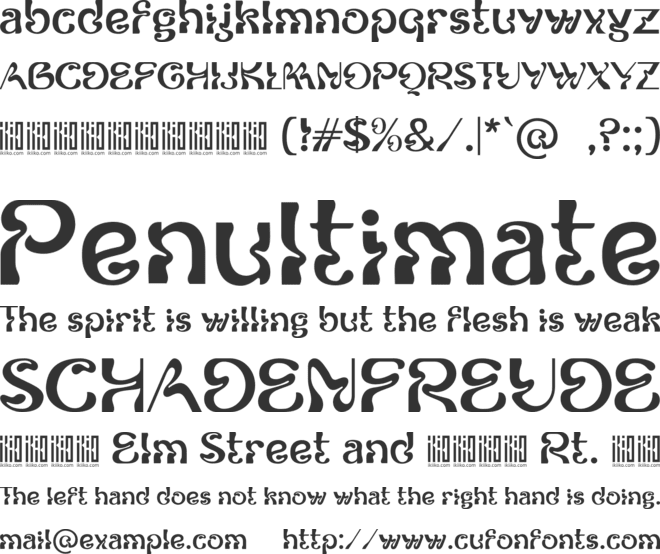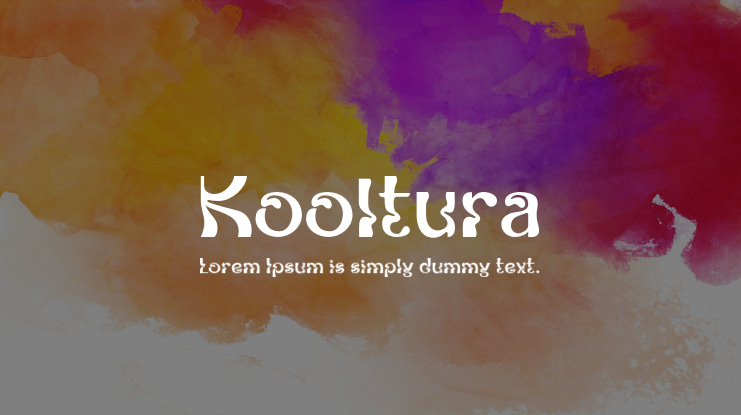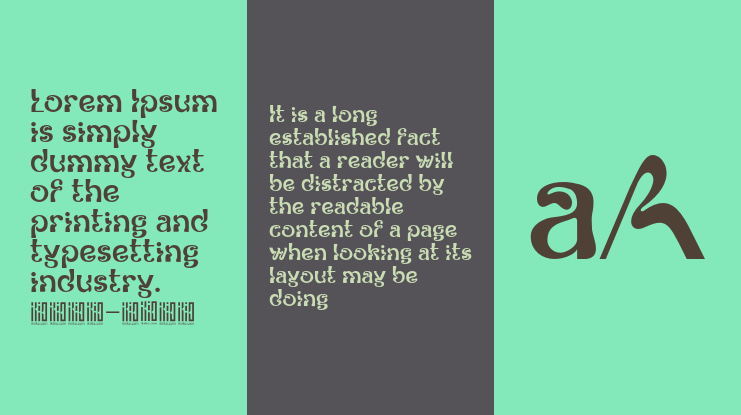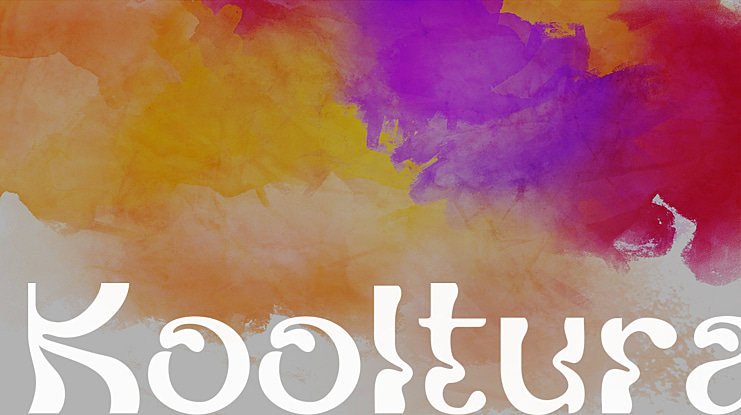
Kooltura Font
Introducing Kooltura Psychadelic Type, created by ikiiko.
Is a trippy typeface with unique stylistic in 70s era. This typeface is perfect for an poster, cover album, cult product, hipster stuff, fashion, quotes, or simply as a stylish text overlay to any background image.